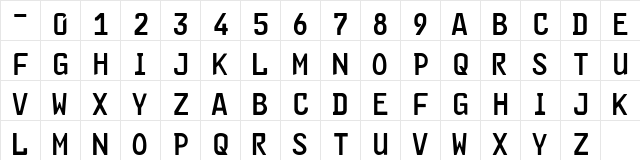
FE-Font Normal
Design Context for FE-Font Typeface
FE-Font takes a measured approach to typography — its balanced proportions and neutral character make it a reliable workhorse for both digital and print work.
Pro Tip: Use FE-Font in both headline and body roles to test its range before committing to a single application.